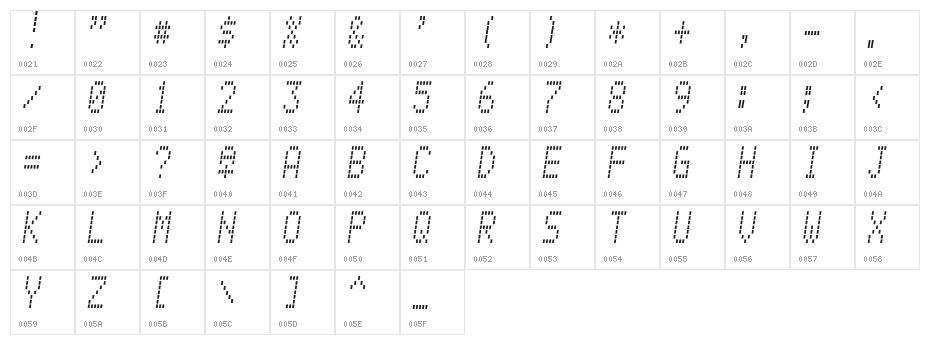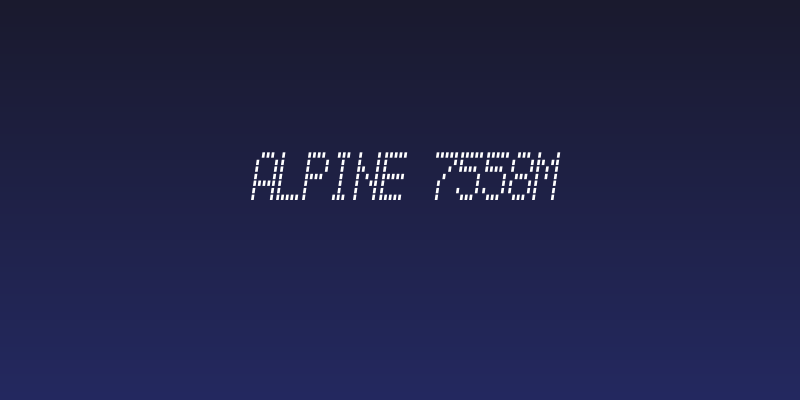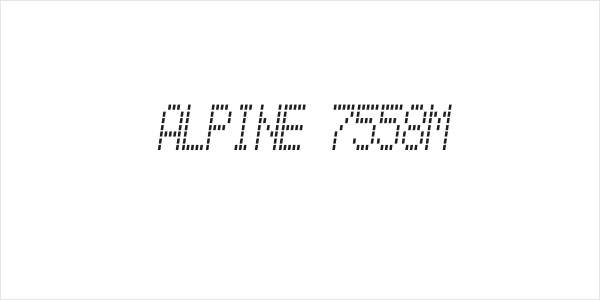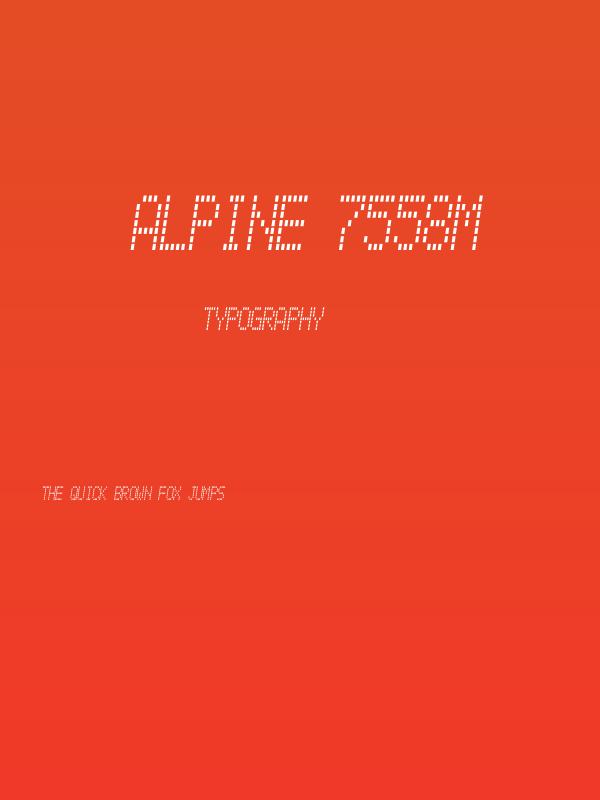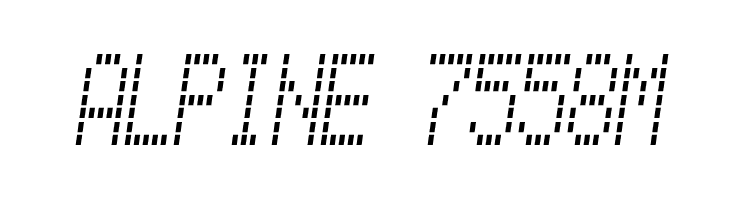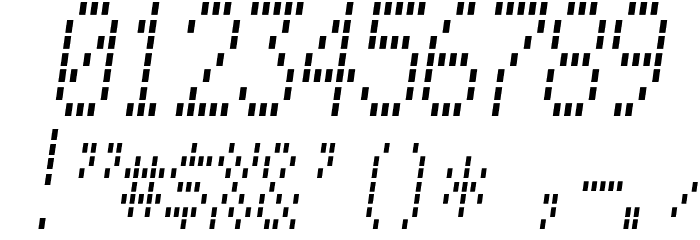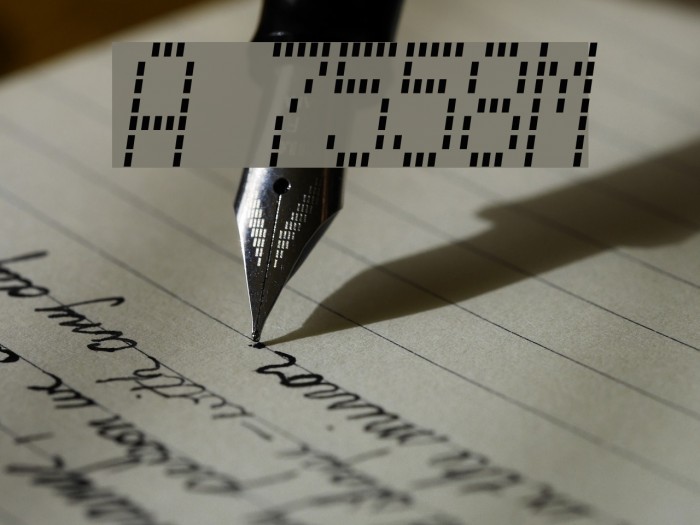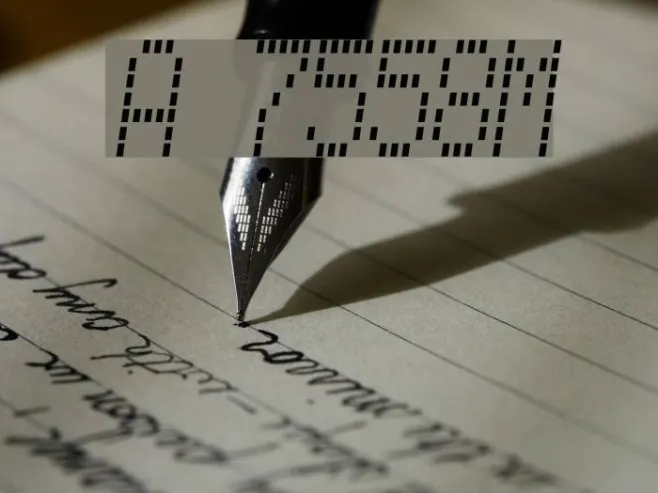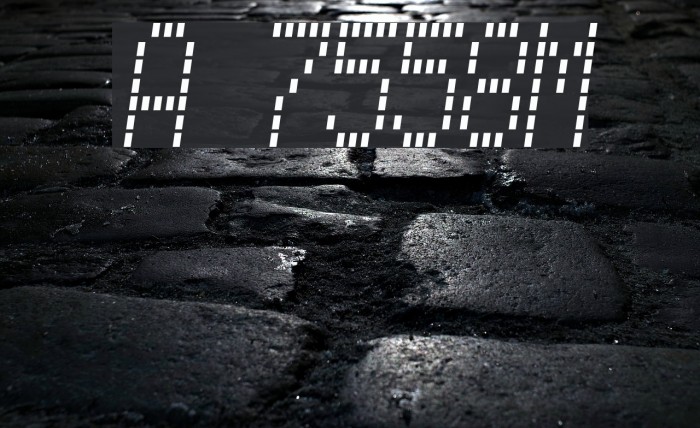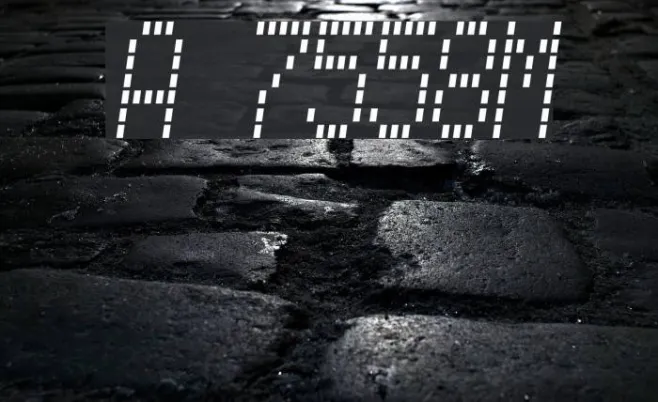
Alpine 7558M Font
Alpine 7558M Description
This font features a distinctive dot-matrix style, reminiscent of digital displays and retro computing. Each character is composed of a grid of small, evenly spaced dots, creating a pixelated effect that is both nostalgic and modern. The uppercase and lowercase letters maintain a consistent height, while numbers and special characters follow the same dot pattern, ensuring uniformity across all glyphs. The font's geometric precision and uniform spacing make it ideal for digital-themed projects or designs that require a technological or futuristic aesthetic.
| Use Case | Headlines, Logos, Digital Displays |
| Proposed Projects | Ideal for digital displays, retro-themed designs, tech branding, and futuristic interfaces. |